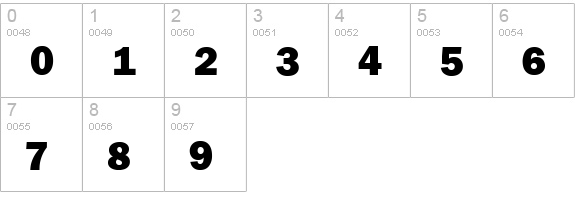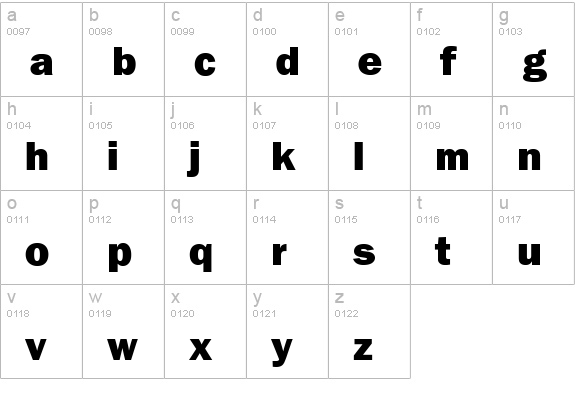
Franklin Gothic* Heavy Font Details
Franklin Gothic* Heavy is a heavy, high-impact variant in the Franklin typeface family \xE2\x80\x94 well suited to high-impact headlines, posters, and display advertising.
Franklin Gothic Heavy is a bold and commanding typeface that exudes strength and authority. Its thick, robust letterforms make a bold statement and demand attention. Perfect for headlines and titles, this font is ideal for projects that require a strong and impactful presence. And the best part? Franklin Gothic Heavy is available for free download at FontsMarket.com. This means you can easily access this powerful font and use it in your designs without any cost. So why wait? Elevate your projects with the impactful Franklin Gothic Heavy font today!